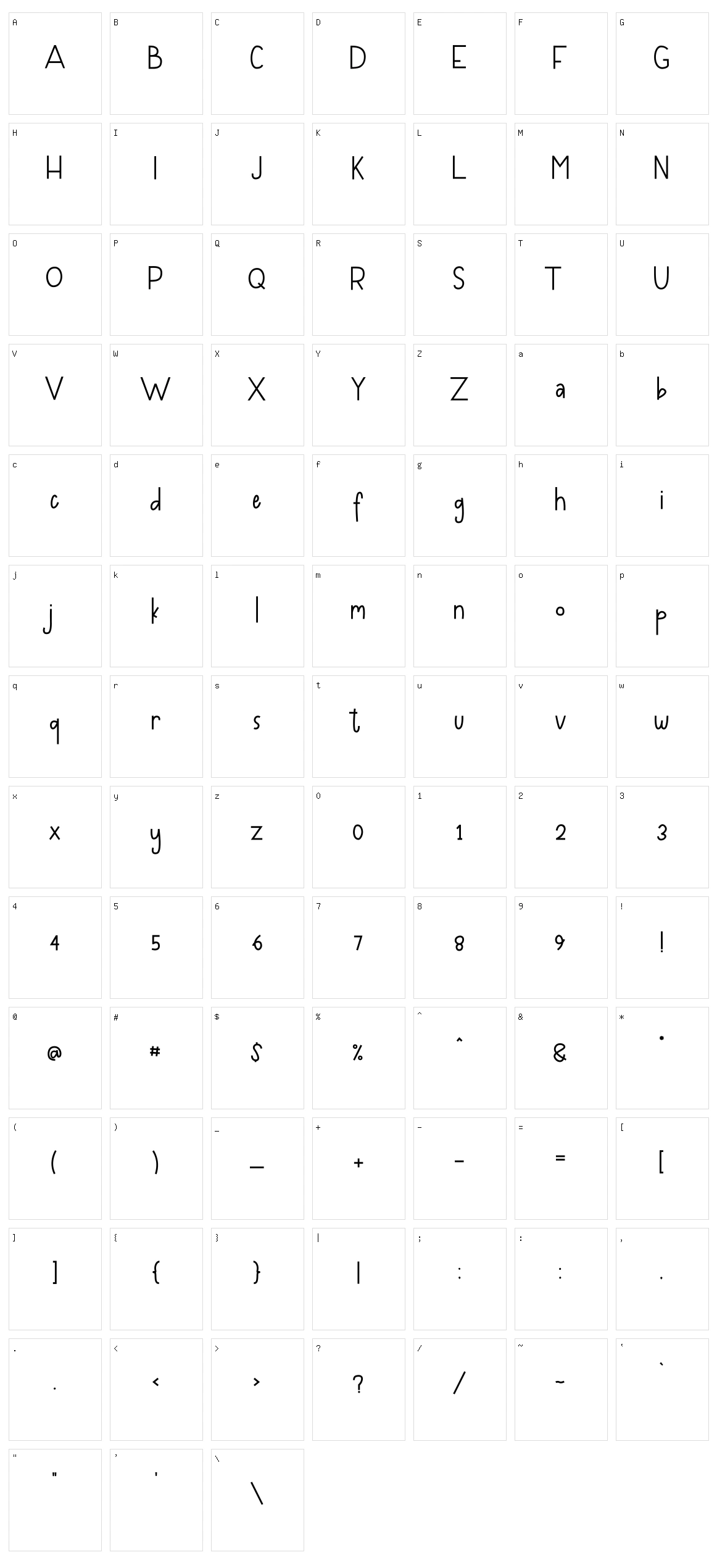
The free font Bumblle is carefully designed by Imam Munandar, showcasing a thoughtful balance of creativity and usability and falls under the Cartoon font style. When you download the ZIP file, it contains only 12.25 KB of font files, making it lightweight and quick to download. Please review the license details below to understand permitted usage and distribution rights. If license information is not available, we recommend using this font for personal projects only or contacting the author directly for commercial usage permissions.